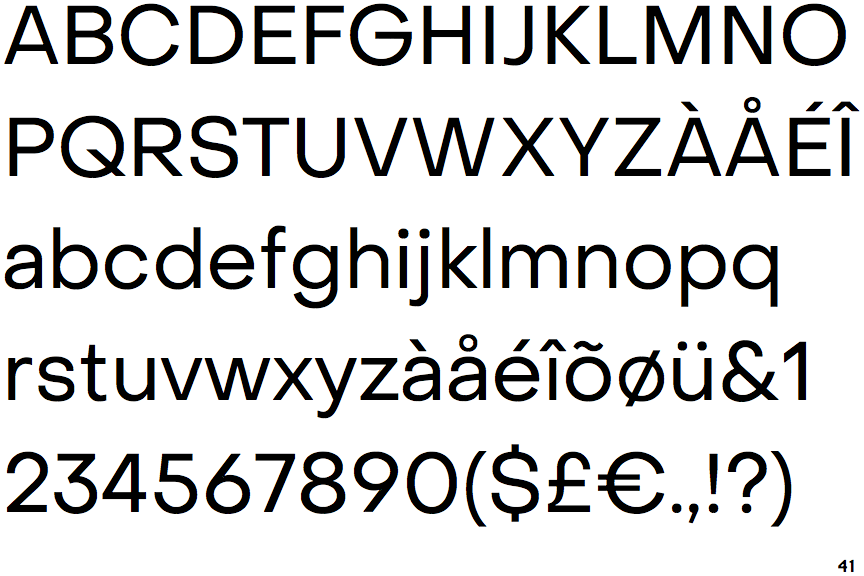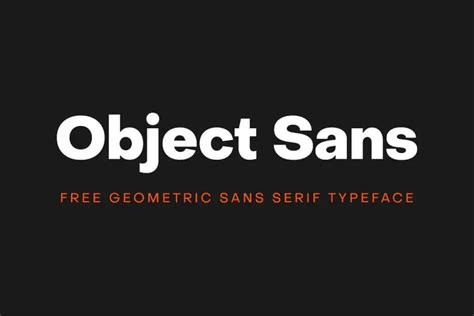
Object Sans Font. Object designed and shared by alex slobzheninov. It’s a multifunctional workhorse designed to work best in any.
Object designed and shared by alex slobzheninov. It’s a multifunctional workhorse designed to work best in any. It’s a multifunctional workhorse designed to work best in any. Web introducing object font family! It’s a multifunctional workhorse designed to work best in any.
It’s a multifunctional workhorse designed to work best in any. It’s a multifunctional workhorse designed to work best in any. It’s a multifunctional workhorse designed to work best in any. It’s a multifunctional workhorse designed to work best in any. Web introducing object font family! Object designed and shared by alex slobzheninov.